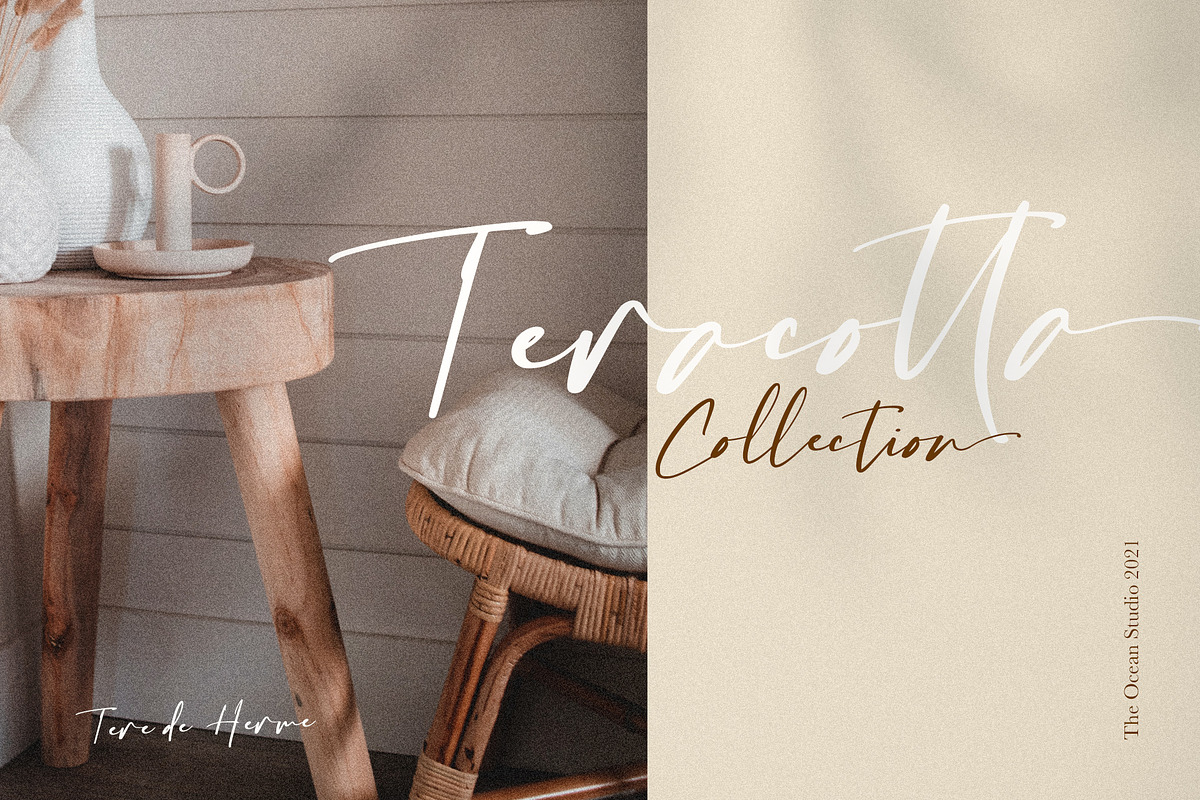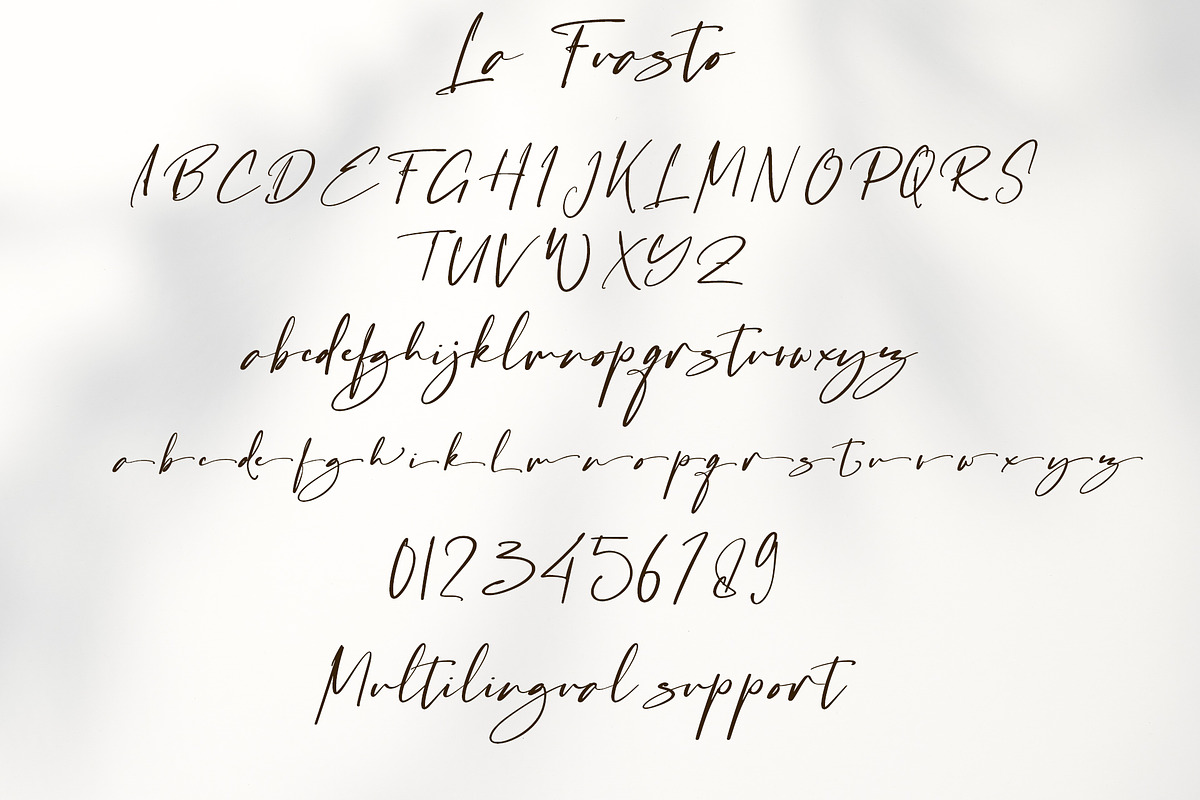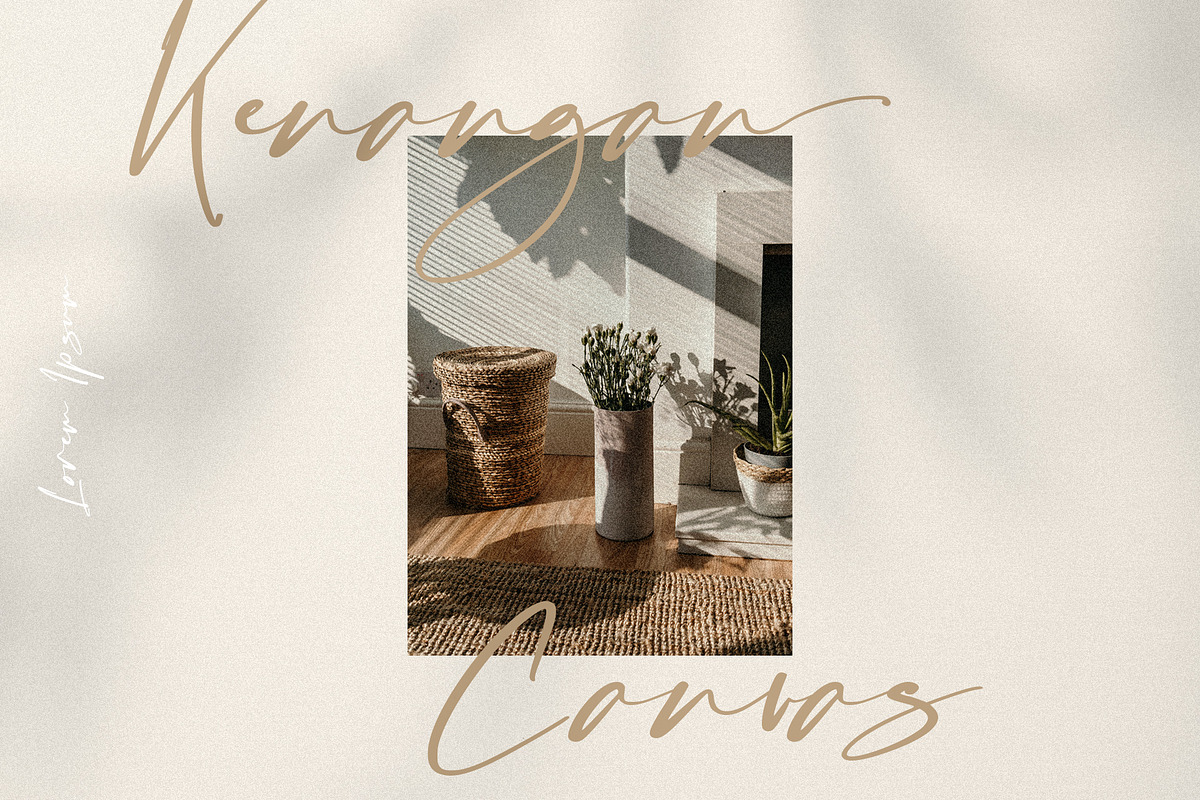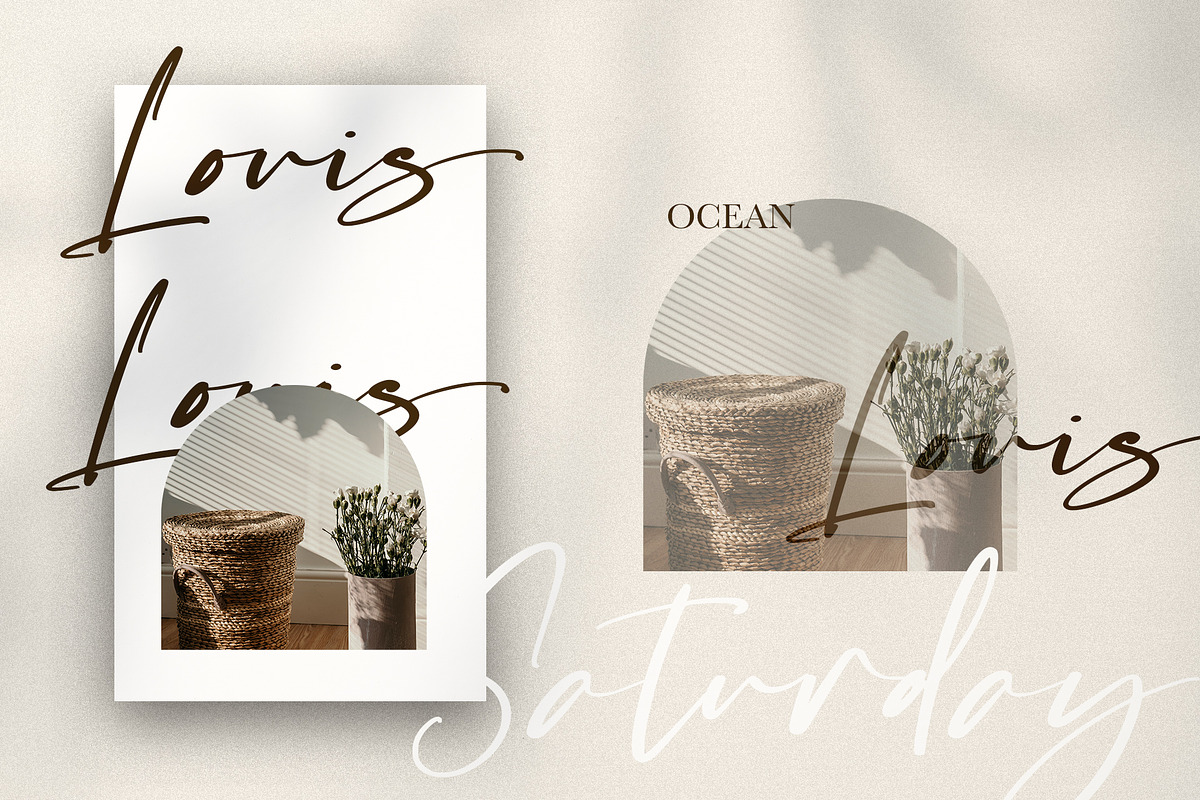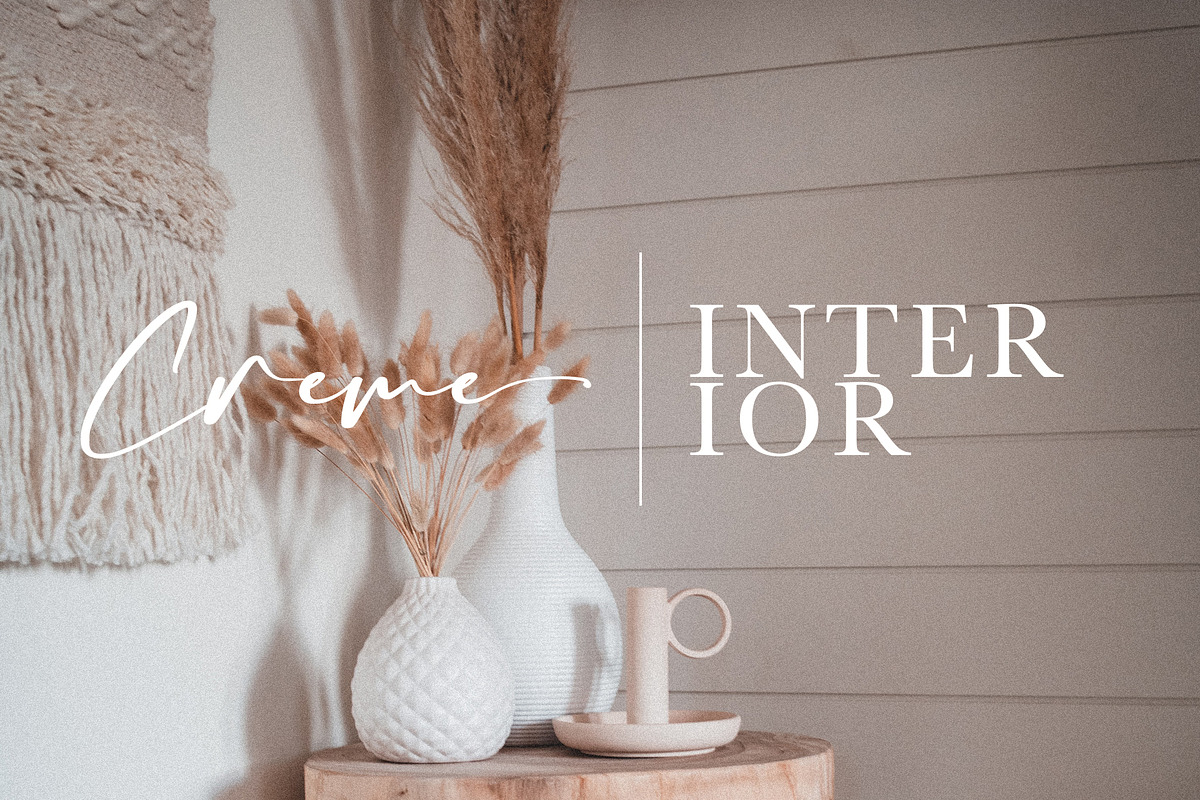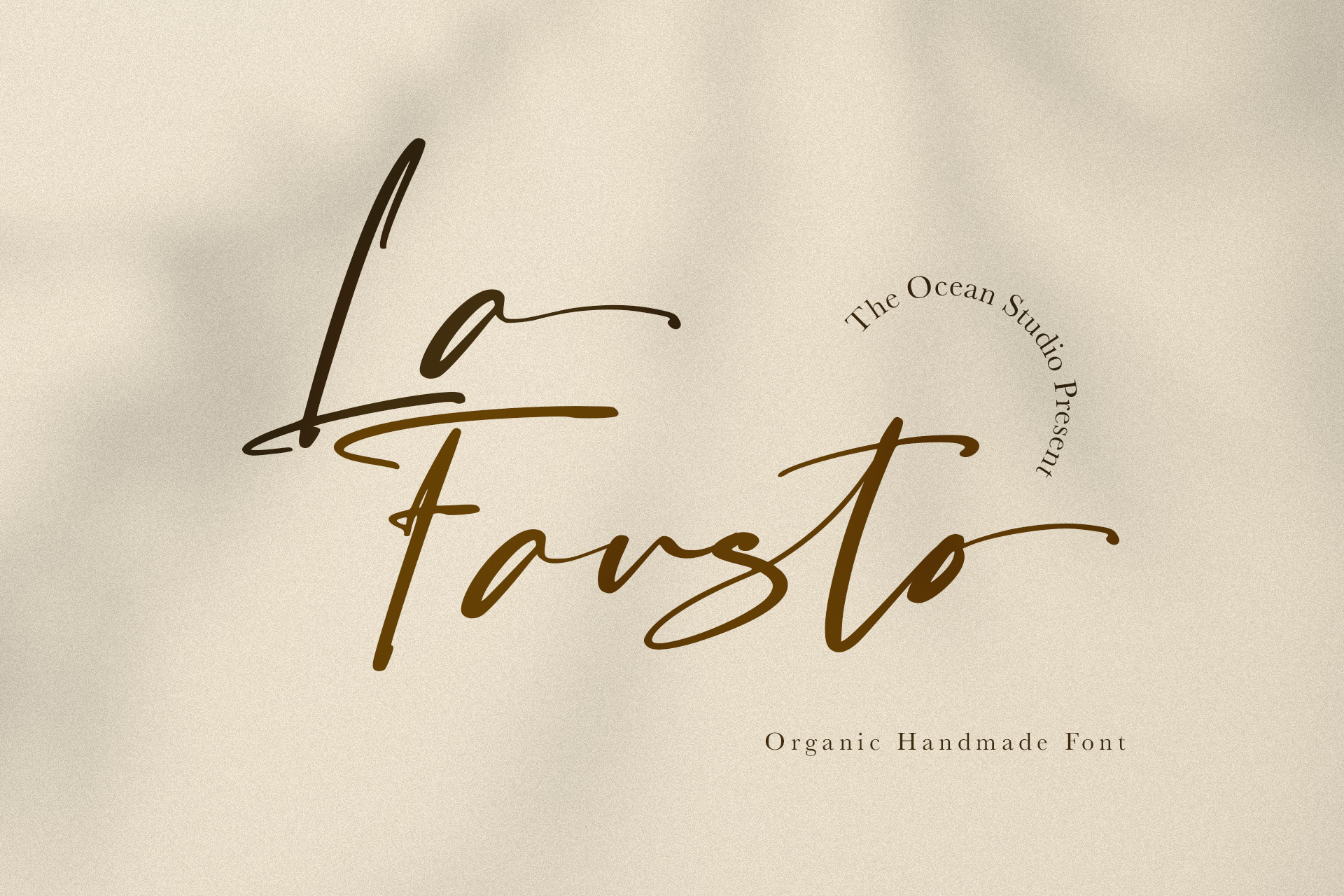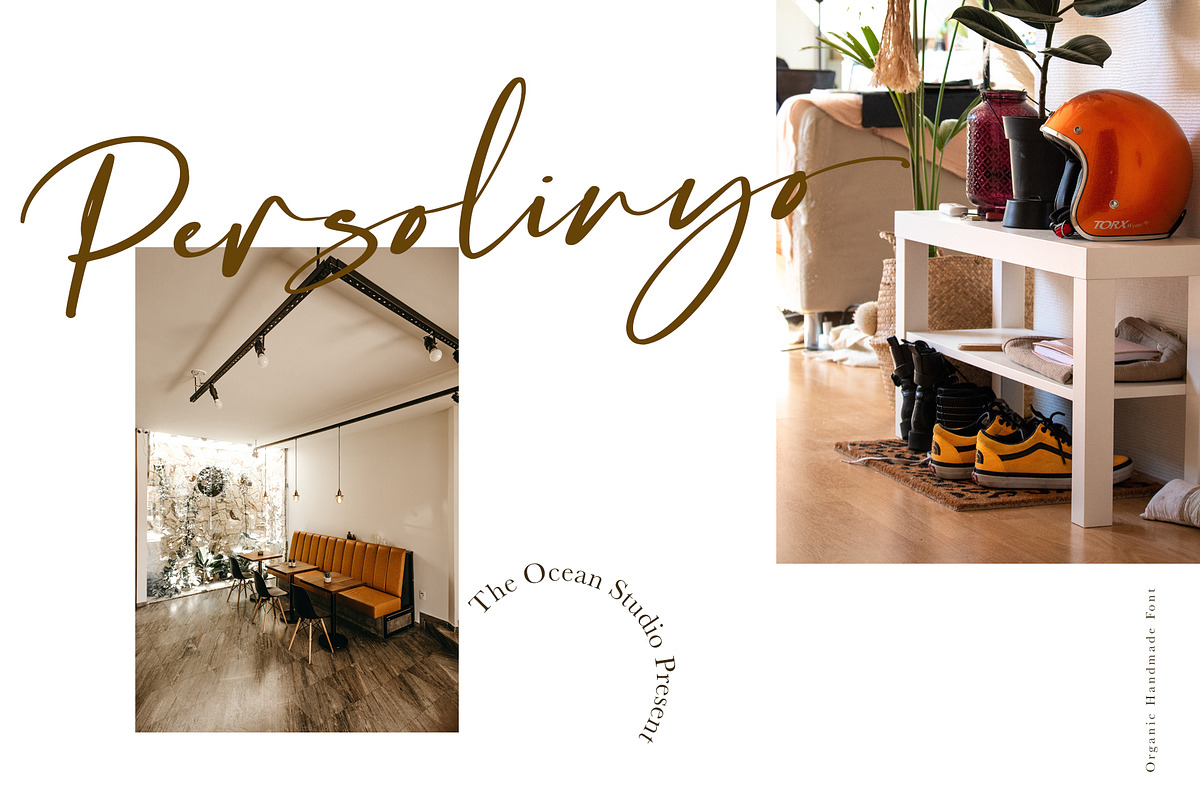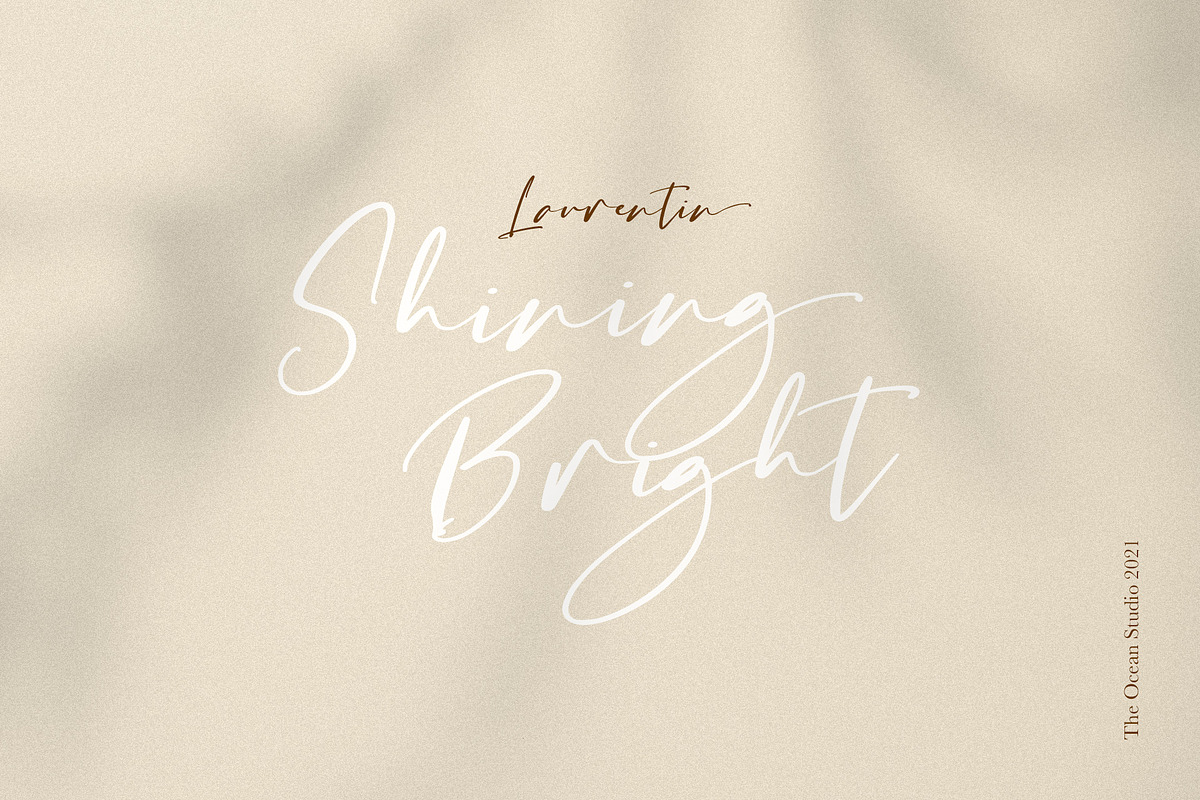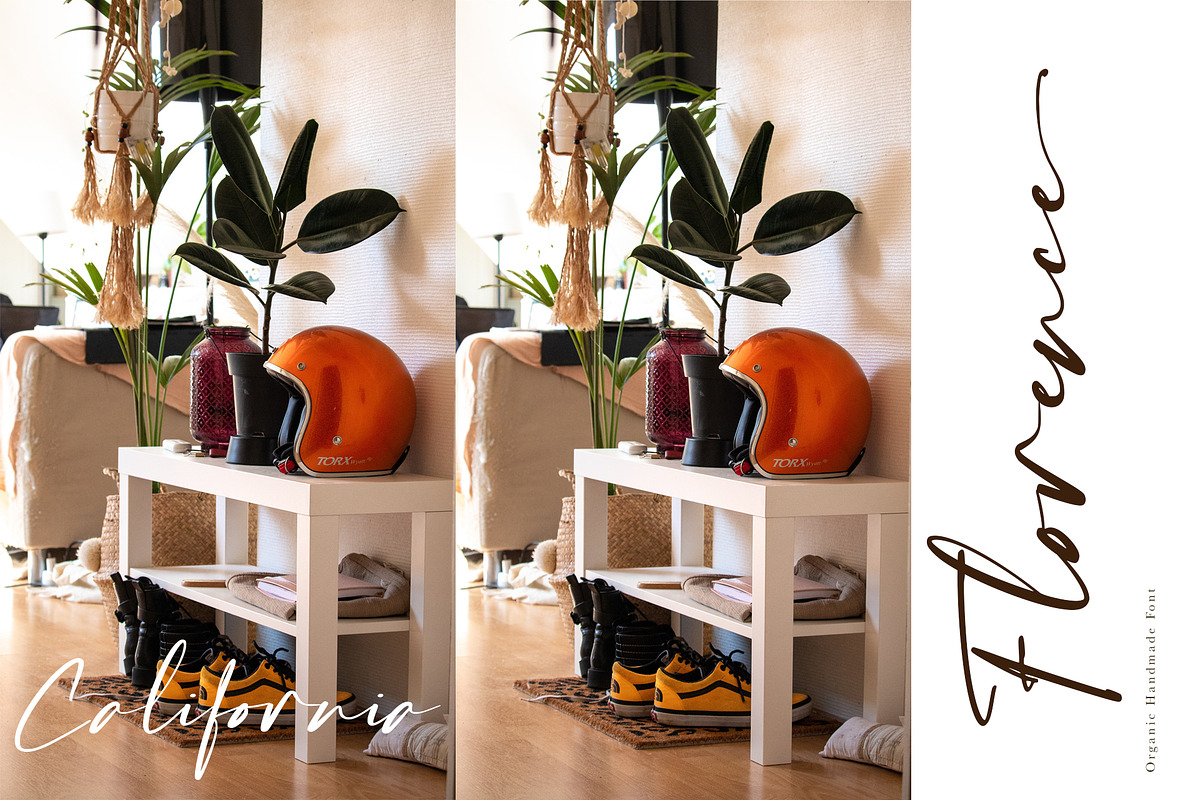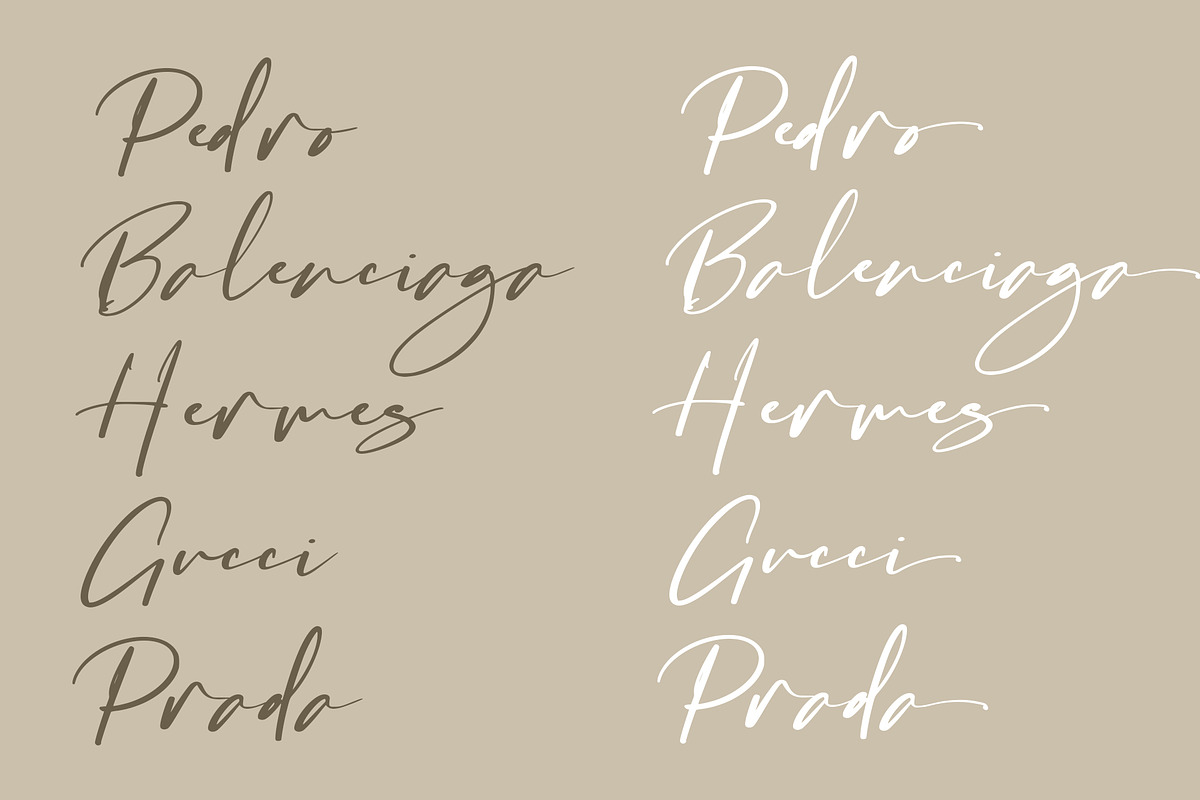
La Fausto | Handwritten Font
La fausto is a beautiful font script, font will make your design more beautiful and classy. This font is suitable for any design like Logo, branding, quotes, and etc. very single letters have been carefully crafted to make your text looks beautiful